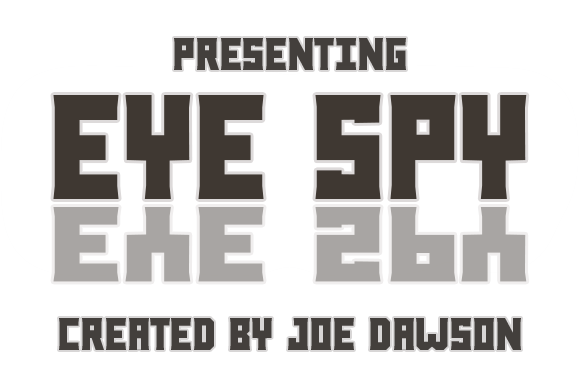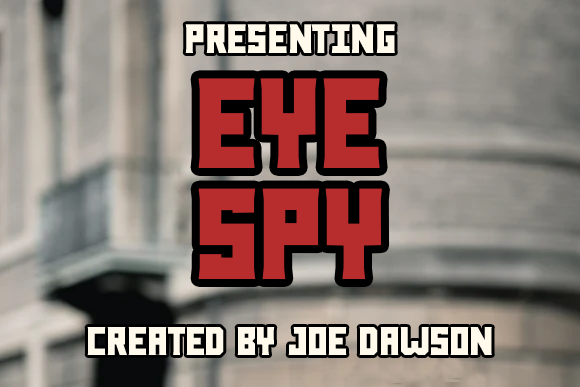
Eye Spy Font: A Playfully Nostalgic Display Font for Your Retro-Inspired Designs
Are you a designer or crafter looking to add a touch of nostalgia to your work? Look no further than the Eye Spy Font! This display font is the perfect way to bring a vintage aesthetic to any design idea you can think of. With its playfully nostalgic feel, Eye Spy Font is sure to transport your audience back in time.
The Charm of Eye Spy Font
Eye Spy Font is a unique and eye-catching display font that is reminiscent of classic signage and typography from the past. Its bold, playful, and whimsical design makes it perfect for use in a variety of creative projects, from posters and flyers to logos and branding materials. Whether you’re looking to create a retro-inspired look or simply want to add a touch of nostalgia to your design, Eye Spy Font is the perfect choice.
Key Features of Eye Spy Font
• Playfully Nostalgic Feel: Eye Spy Font has a distinctly retro feel that is sure to evoke memories of childhood and summertime fun.
• Vintage Aesthetic: This display font features a classic, timeless design that is perfect for creating a vintage-inspired look.
• Bold and Eye-Catching: Eye Spy Font is a bold and attention-grabbing font that is sure to make your designs stand out.
• Versatile: This font can be used in a variety of creative projects, from print materials to digital designs.
Uses for Eye Spy Font
Eye Spy Font is a versatile display font that can be used in a variety of creative projects. Here are just a few ideas to get you started:
• Posters and Flyers: Use Eye Spy Font to create eye-catching posters and flyers for events, promotions, and more.
• Logos and Branding: Add a touch of nostalgia to your logo and branding materials with Eye Spy Font.
• Signage: This font is perfect for creating vintage-inspired signage for businesses, events, and more.
• Digital Designs: Use Eye Spy Font to add a retro touch to your digital designs, including social media graphics, website headers, and more.
Tips for Using Eye Spy Font
Here are a few tips for getting the most out of Eye Spy Font:
• Use it Sparingly: Eye Spy Font is a bold and attention-grabbing font, so use it sparingly to avoid overwhelming your design.
• Pair it with Other Fonts: Experiment with pairing Eye Spy Font with other fonts to create a unique and visually interesting design.
• Experiment with Colors: Try out different color schemes to find the perfect combination for your design.